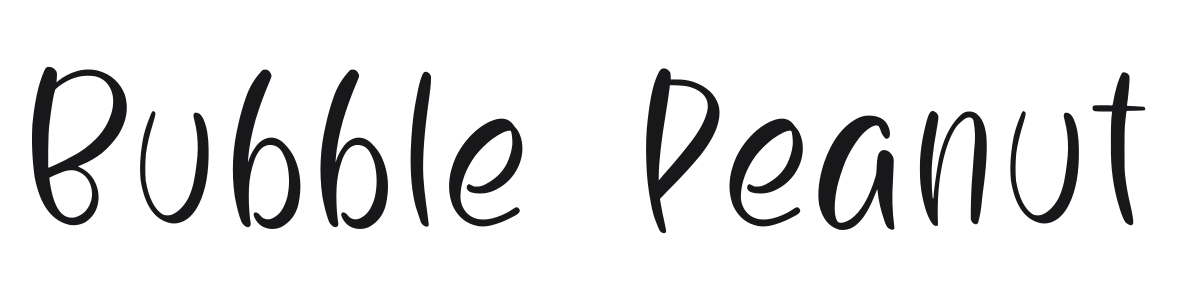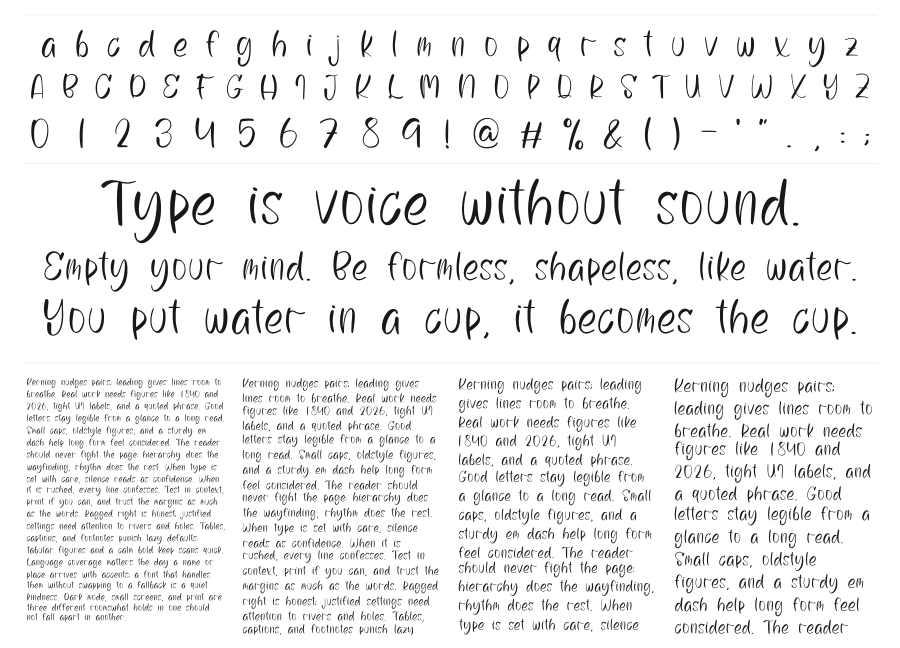
Bubble Peanut
Bubble Peanut is a casual handwritten script from Qwrtype Foundry with a light, flowing feel. The letters move with natural rhythm and gentle baseline variation, evoking an authentic pen-written quality without feeling rough or unpolished. It works well for branding, packaging, and anywhere a warm, personal touch is needed.